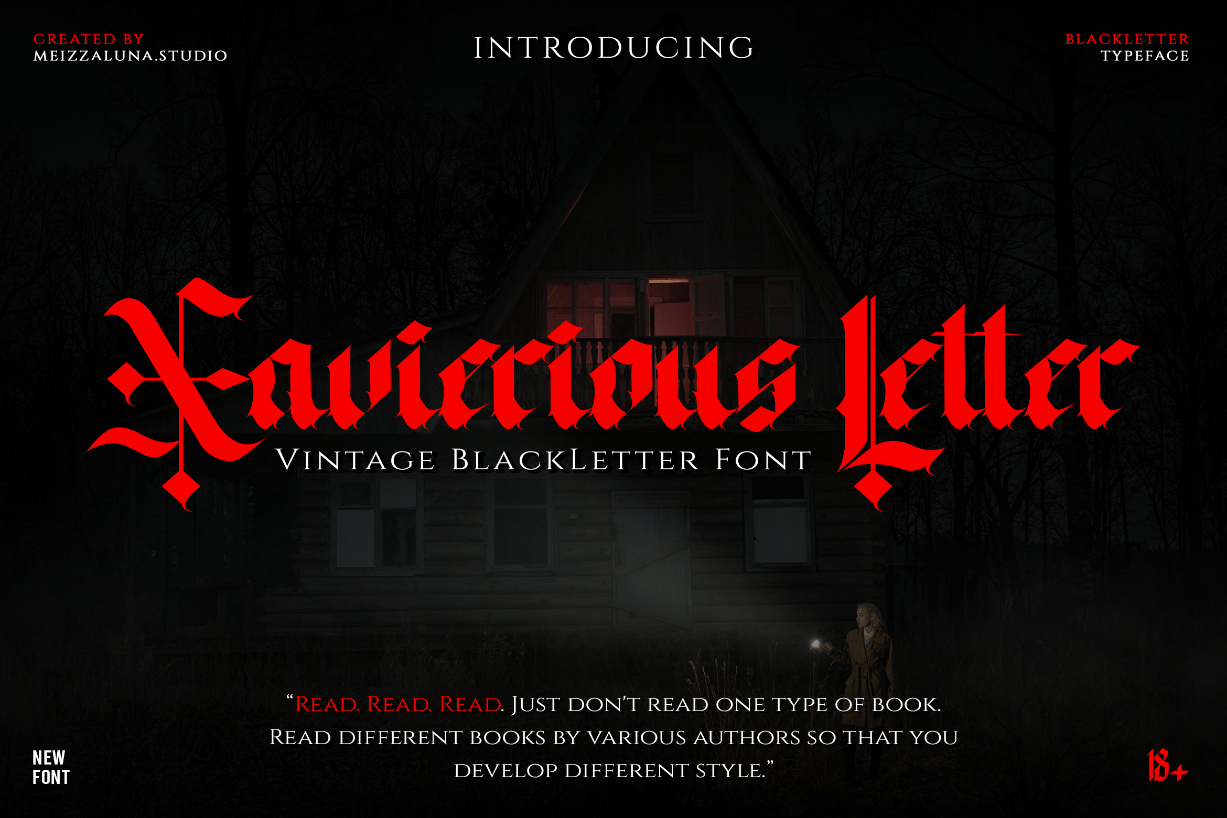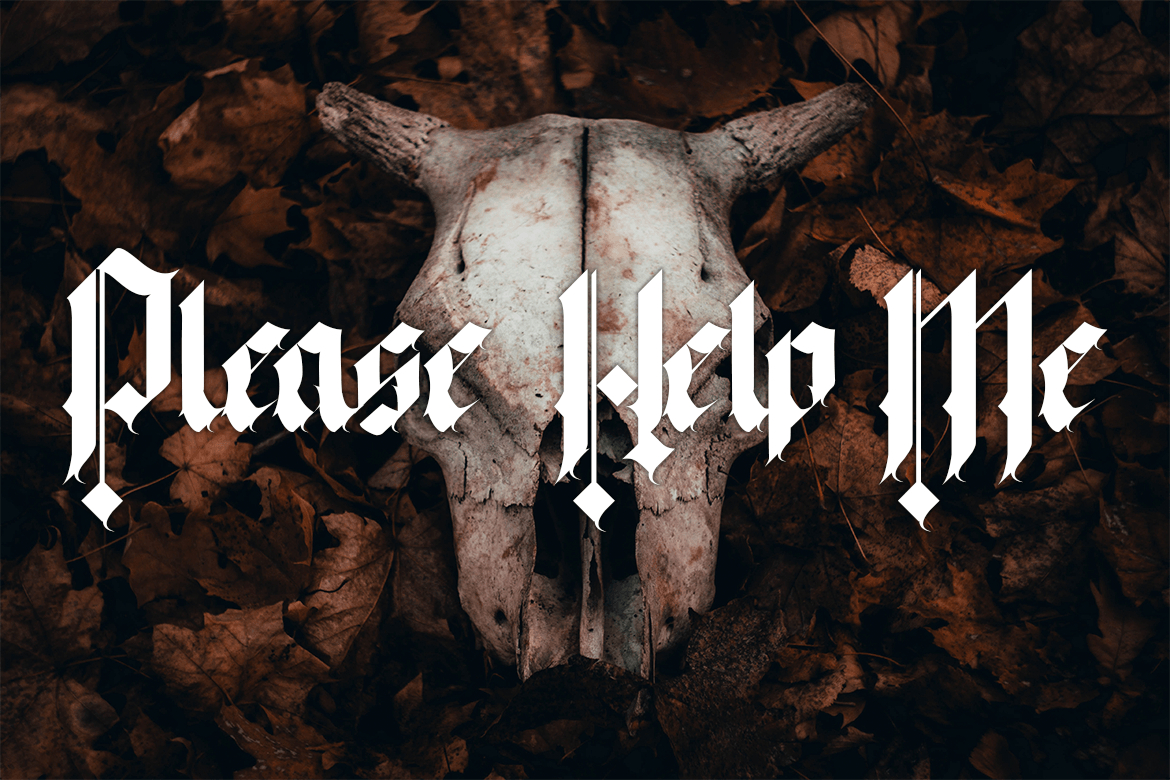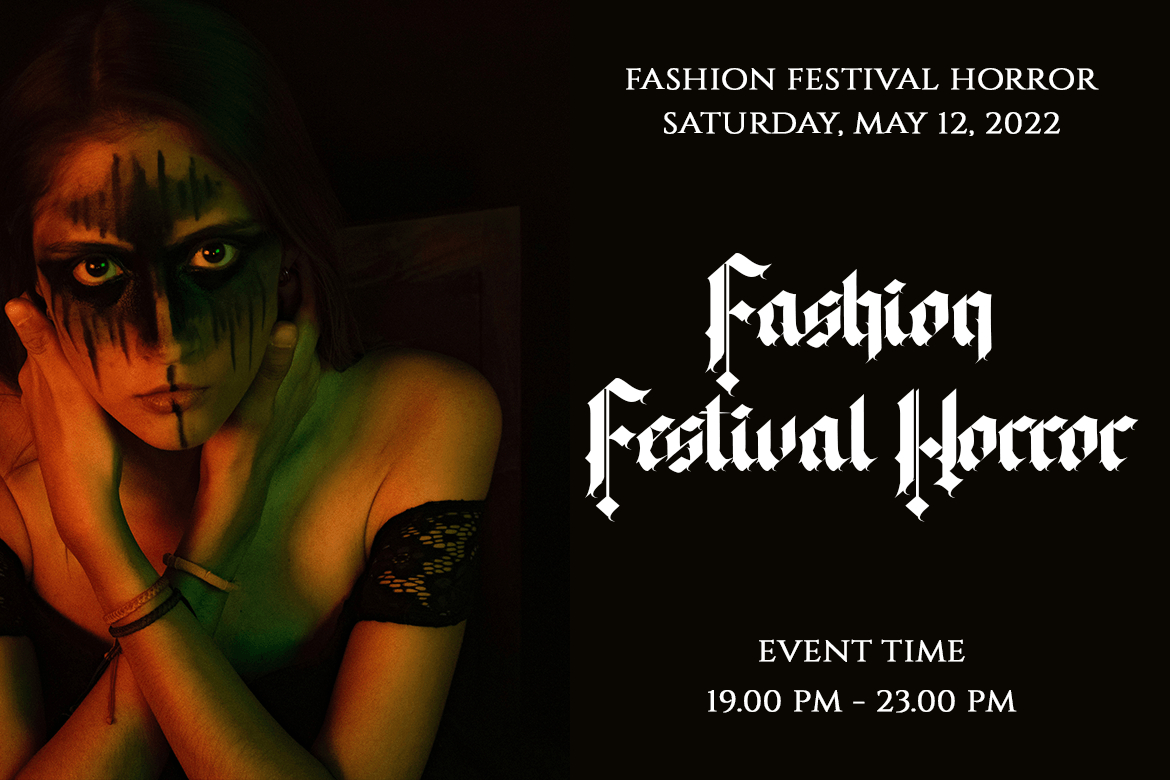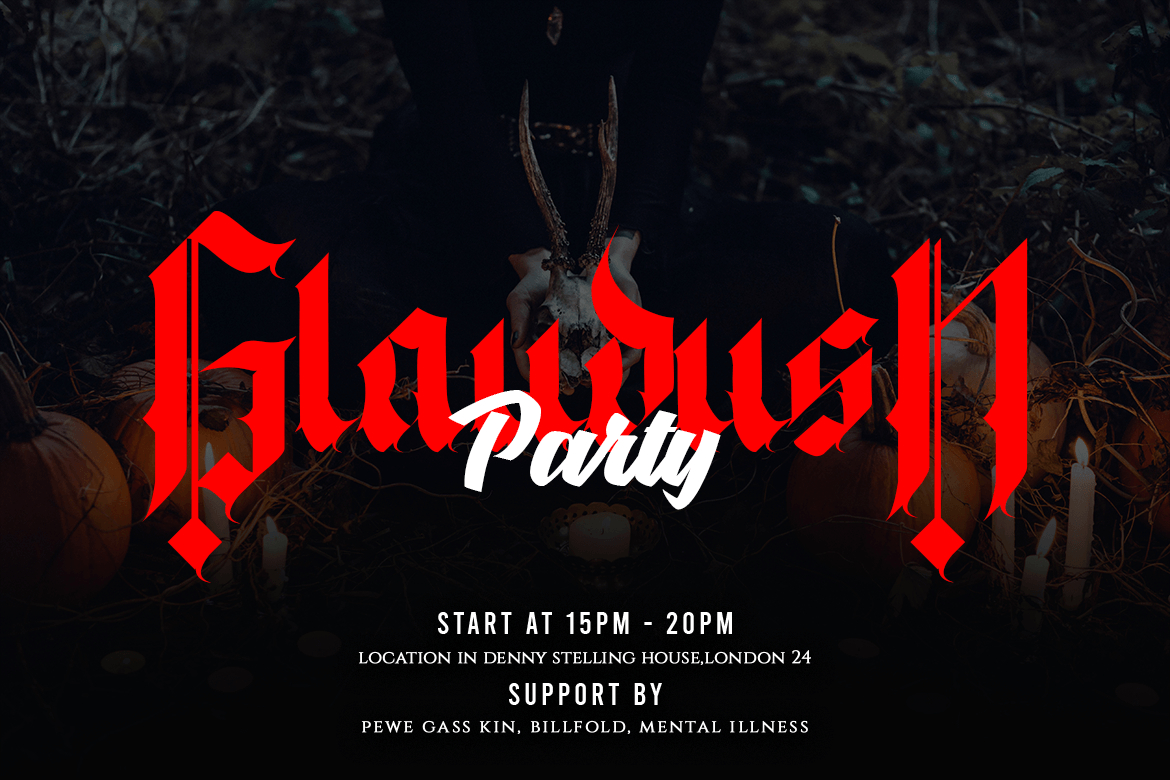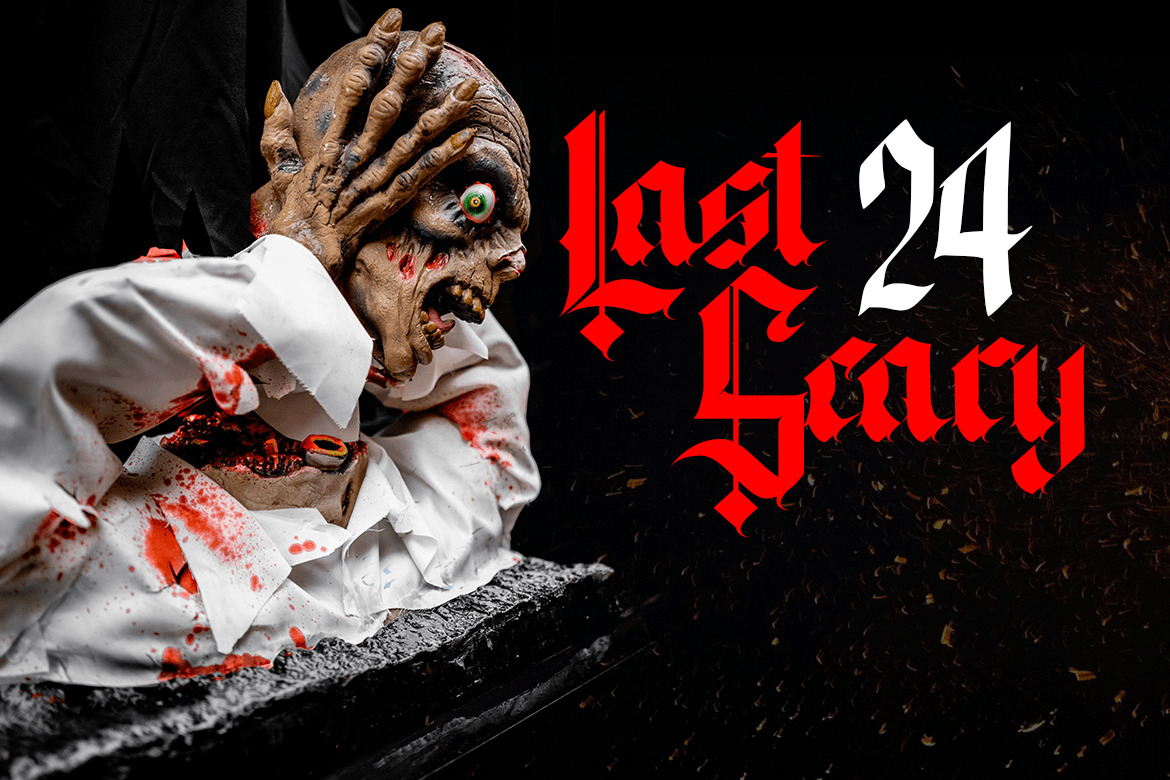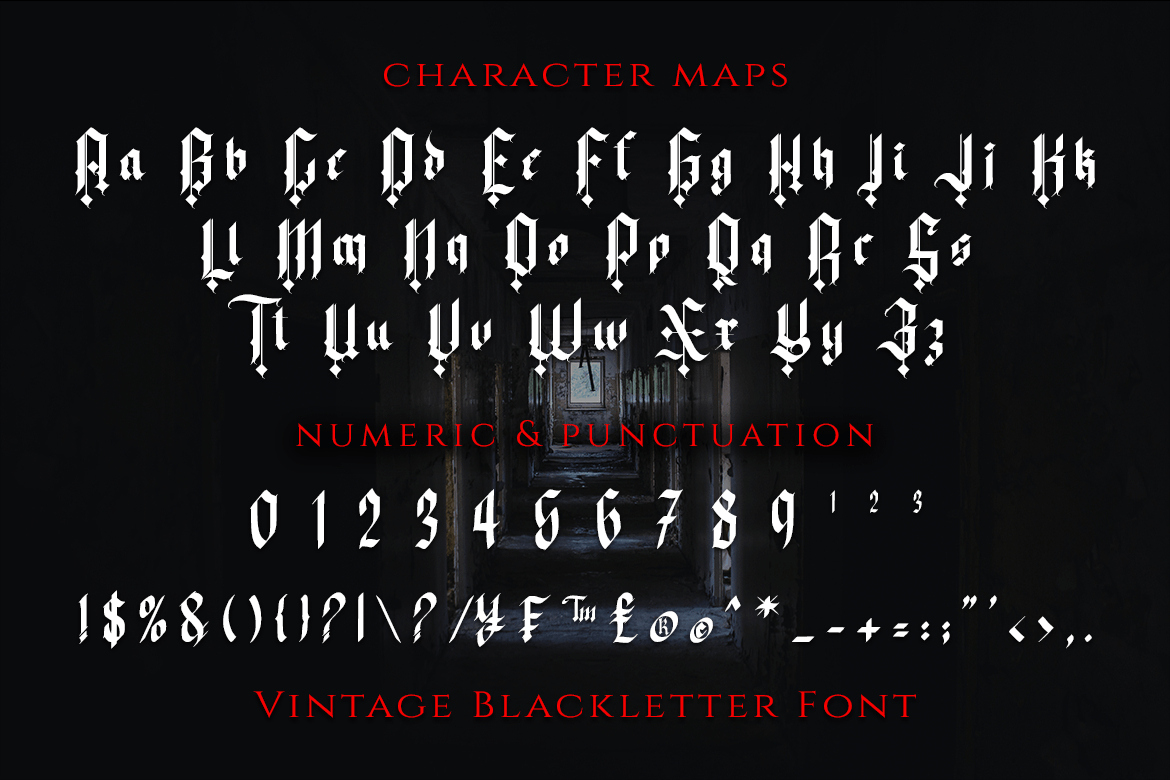
Xavierious Letter Font
About Xavierious Letter Font
Xavierious Letter is a unique Gothic-style blackletter font with a strong personality. Add it confidently to all your design projects that require bold and daring typography and you will be impressed by the outcome generated!